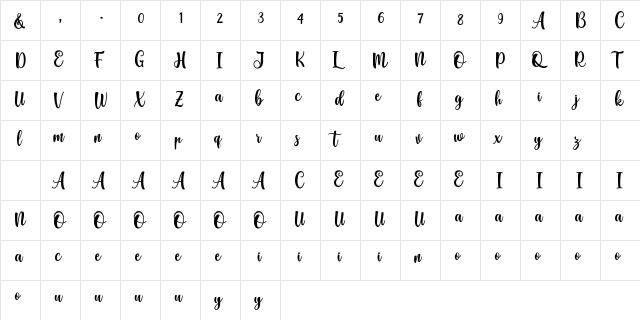
Hello Najwa Regular
| Foundry | Kotak Kuning Studio |
| Designer | M Arif Dwi Prasetyo & Eko Nurcahyo |
Design Context for Hello Najwa Typeface
Hello Najwa is a composed and adaptable typeface that performs quietly and consistently across a wide range of design contexts.